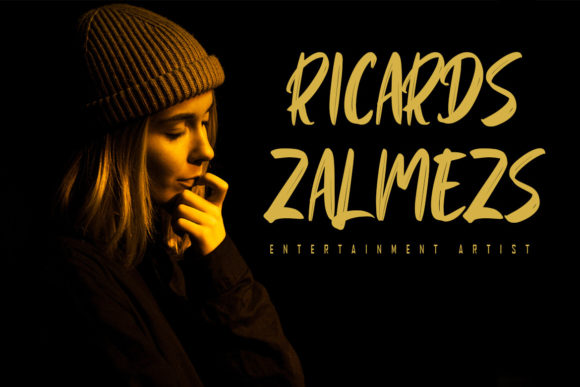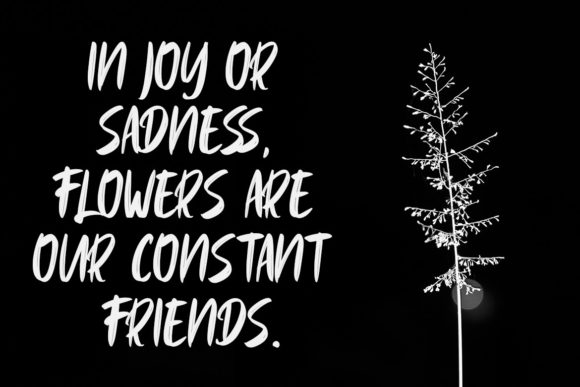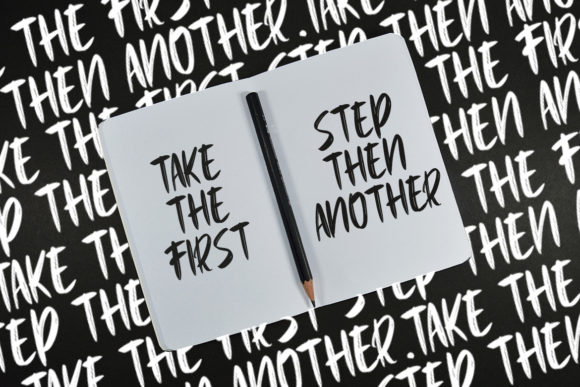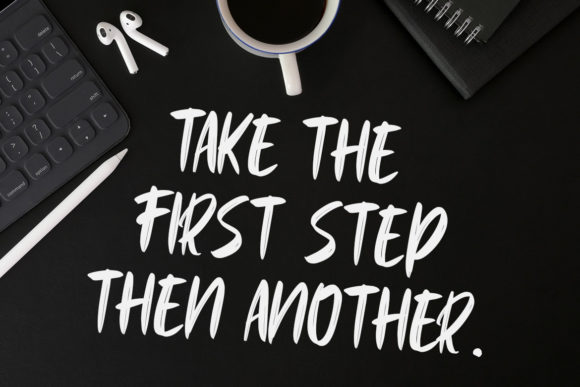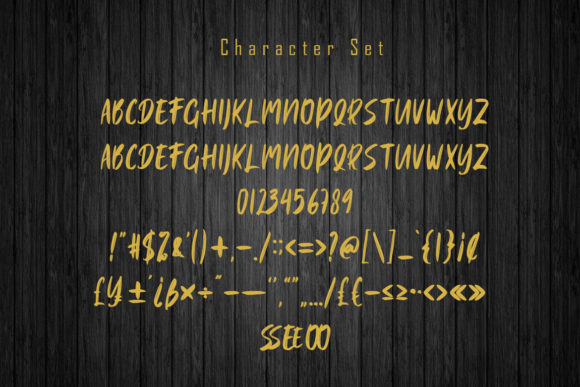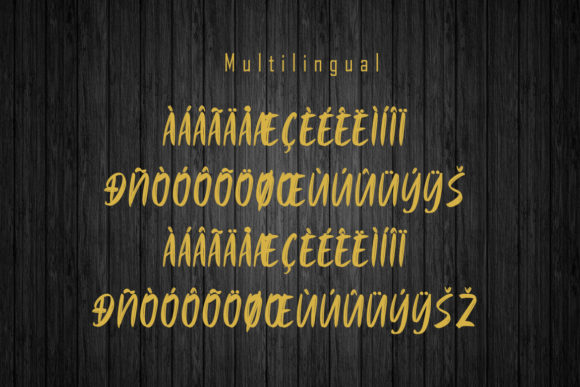
Introducing Dasser Font: Elevate Your Designs with a Modern and Brushed Handwritten Style
In the world of typography, fonts play a crucial role in conveying the tone and personality of a brand or design. For designers and crafters looking to add a touch of urban sophistication to their work, Dasser Font is an excellent choice. This modern and brushed handwritten font is specifically crafted to give your headlines and logotype projects a stylish edge. With its strong, confident, and dynamic appearance, Dasser Font can instantly elevate your designs and make them stand out.
What Makes Dasser Font Unique?
Dasser Font boasts a distinctive brushed handwritten style that sets it apart from other fonts. Its unique texture and fluid strokes give it a dynamic and energetic feel, perfect for designers who want to add a touch of modernity to their work. The font’s strong and confident appearance makes it ideal for headlines, logotypes, and any other design project that requires a bold statement.
Key Features of Dasser Font
- Modern and Brushed Handwritten Style: Dasser Font features a modern and brushed handwritten style that adds a touch of urban sophistication to your designs.
- Strong and Confident Appearance: The font’s strong and confident appearance makes it perfect for headlines and logotype projects that require a bold statement.
- Dynamic and Energetic Feel: Dasser Font’s unique texture and fluid strokes give it a dynamic and energetic feel that can instantly elevate your designs.
- Urban Character: The font’s modern and brushed style adds tons of urban character to your designs, making them perfect for designers who want to create a stylish and contemporary look.
How to Use Dasser Font in Your Designs
Dasser Font is an incredibly versatile font that can be used in a wide range of design projects. Here are a few ideas to get you started:
- Headlines and Logotypes: Use Dasser Font to create bold and eye-catching headlines and logotypes that make a lasting impression.
- Branding and Identity: The font’s strong and confident appearance makes it perfect for branding and identity projects that require a modern and sophisticated look.
- Advertising and Marketing: Dasser Font’s dynamic and energetic feel makes it ideal for advertising and marketing projects that require a bold and attention-grabbing style.
- Packaging and Label Design: The font’s unique texture and fluid strokes make it perfect for packaging and label design projects that require a modern and stylish look.
Why Choose Dasser Font?
With so many fonts available, why choose Dasser Font? Here are a few reasons why designers and crafters love this modern and brushed handwritten font:
- Unique and Distinctive Style: Dasser Font’s unique and distinctive style sets it apart from other fonts and makes it perfect for designers who want to create a stylish and contemporary look.
- High-Quality Design: The font is designed with high-quality craftsmanship, ensuring that it looks great in any design project.
- Easy to Read: Despite its bold and dynamic appearance, Dasser Font is easy to read and understand, making it perfect for a wide range of design projects.
In conclusion, Dasser Font is an excellent choice for designers and crafters looking to add a touch of urban sophistication to their work. With its modern and brushed handwritten style, strong and confident appearance, and dynamic and energetic feel, this font is perfect for a wide range of design projects. Whether you’re working on headlines, logotypes, branding and identity projects, or packaging and label design, Dasser Font is sure to elevate your designs and make them stand out.